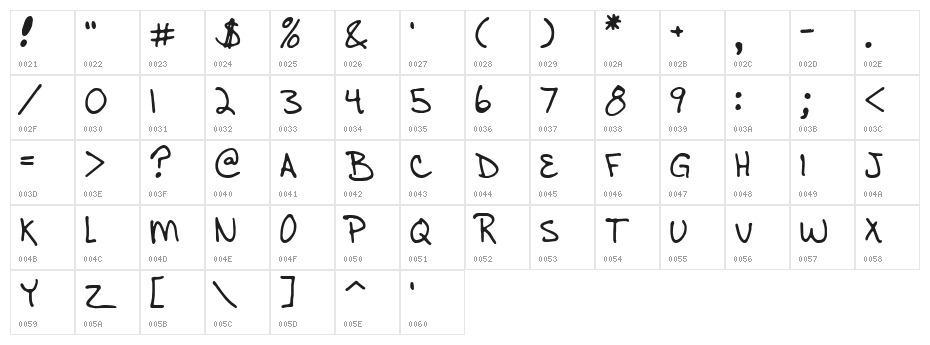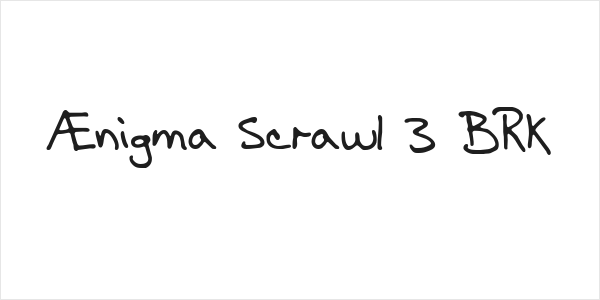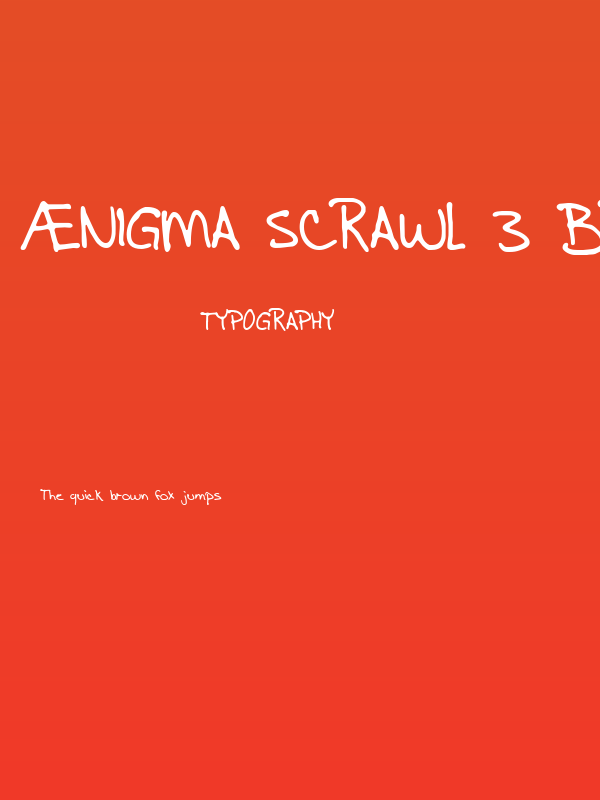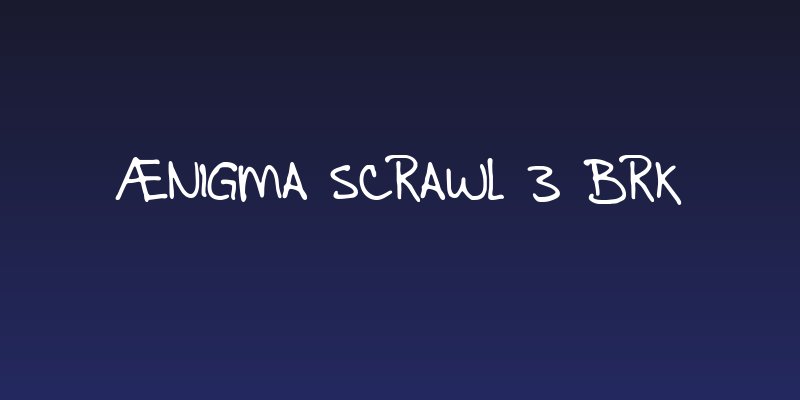
Ænigma Scrawl 3 BRK Font
Ænigma Scrawl 3 BRK Description
This font features a playful and casual handwritten style, characterized by its uneven strokes and organic flow. The letters have a natural, freeform appearance, reminiscent of a quick, informal scrawl. The uppercase and lowercase letters maintain a consistent style, with rounded edges and a slightly irregular baseline, adding to the font's charm. Numbers and special characters follow the same aesthetic, ensuring a cohesive look across all elements. The font's informal nature makes it ideal for projects that require a personal touch or a relaxed vibe.
| Use Case | Headlines, Informal text, Personal projects |
| Proposed Projects | Ideal for greeting cards, casual invitations, children's books, and personal blogs. |